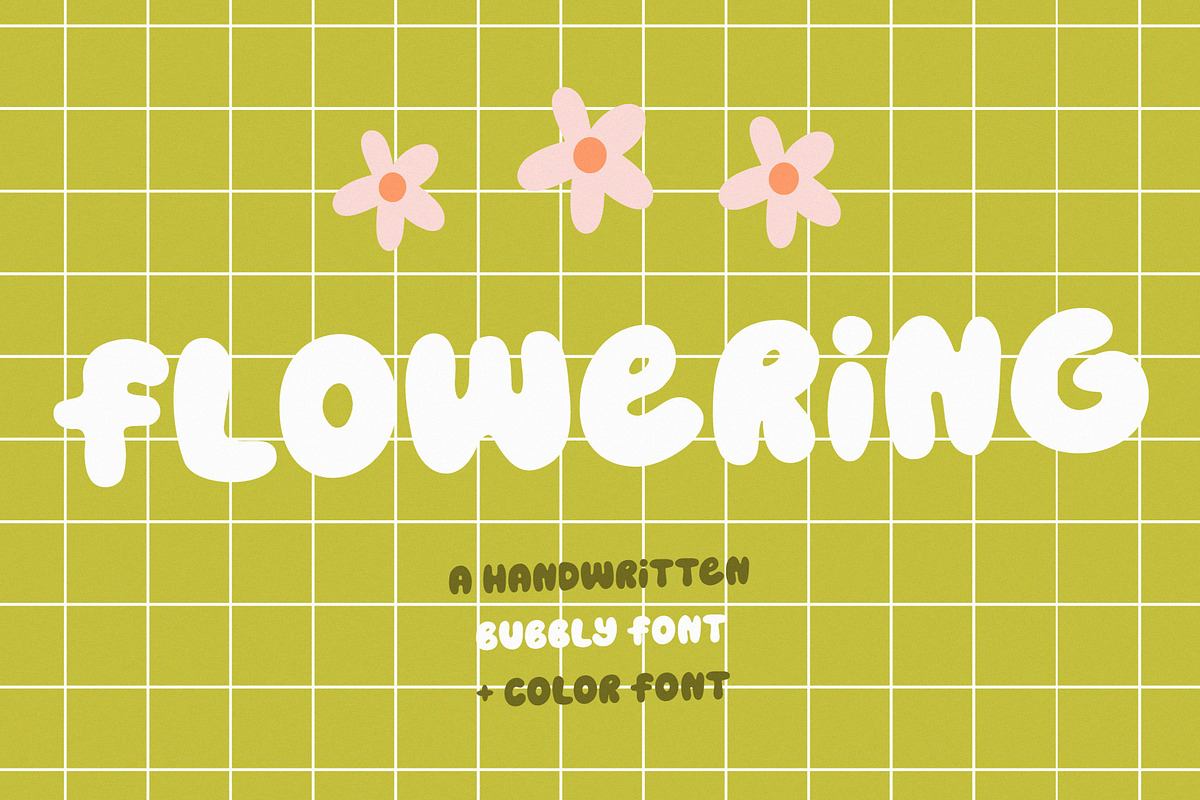
Flowering | Bubbly font Free Download
Flowering | Bubbly Font Free Download is a cheerful and playful typeface full of round shapes and joyful energy. With its bubbly letterforms and fun, friendly vibe, this font is perfect for kids’ designs, party invitations, cute packaging, social media graphics, and branding that needs a pop of personality.
Flowering | Bubbly Font Free Download adds a sense of fun and lightheartedness to your creative projects. Whether you're designing for a children's brand, a whimsical event, or simply want to brighten up your visuals, this font brings charm and sweetness in every curve. Download it now and let your designs bloom with Flowering’s bubbly magic!